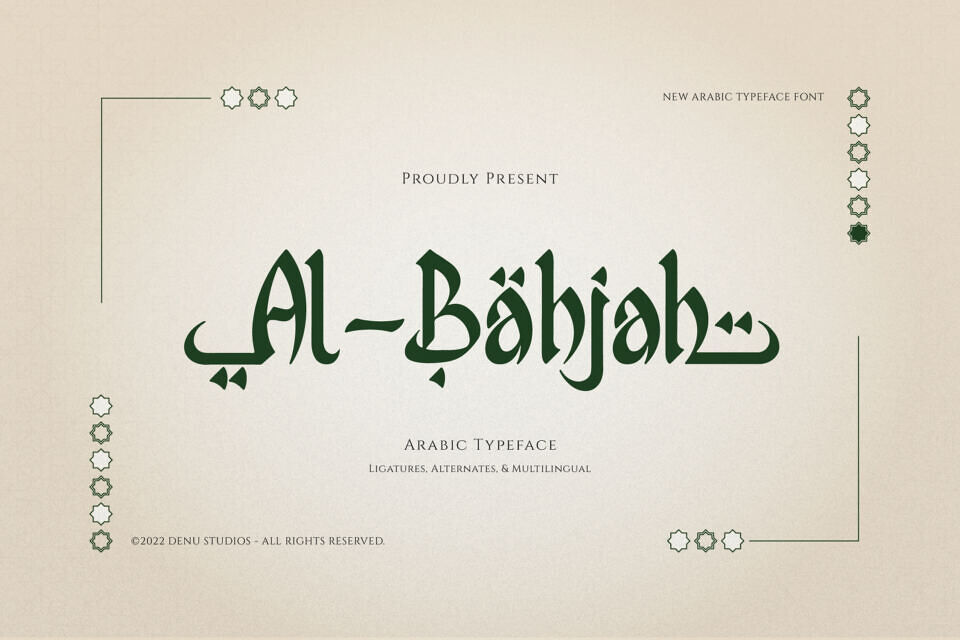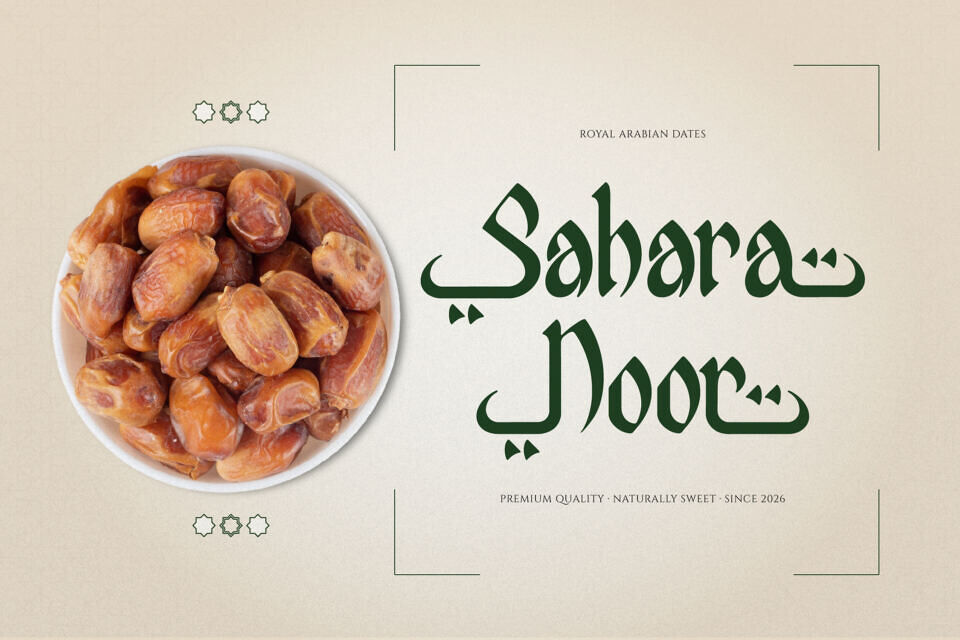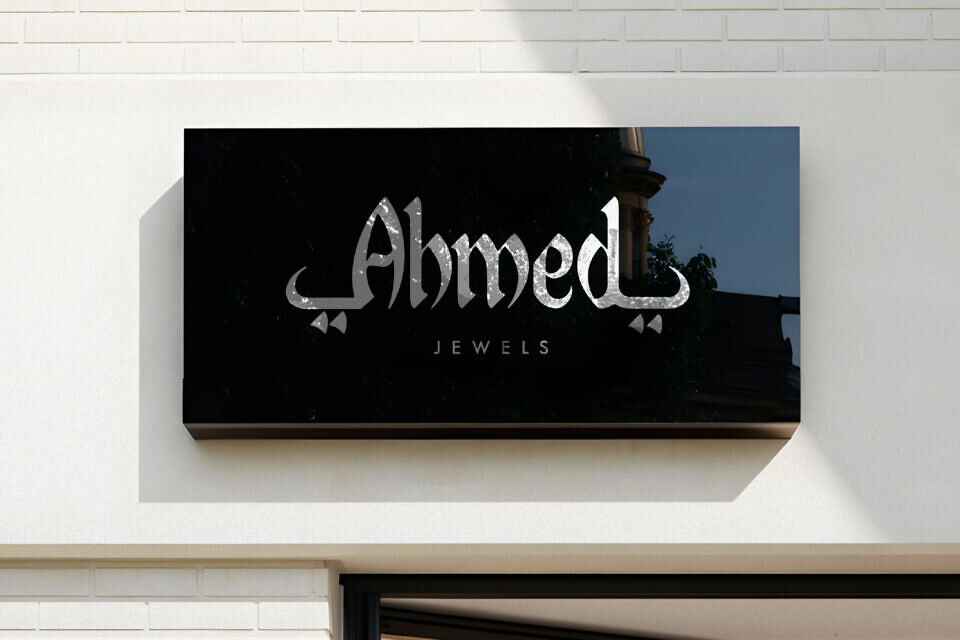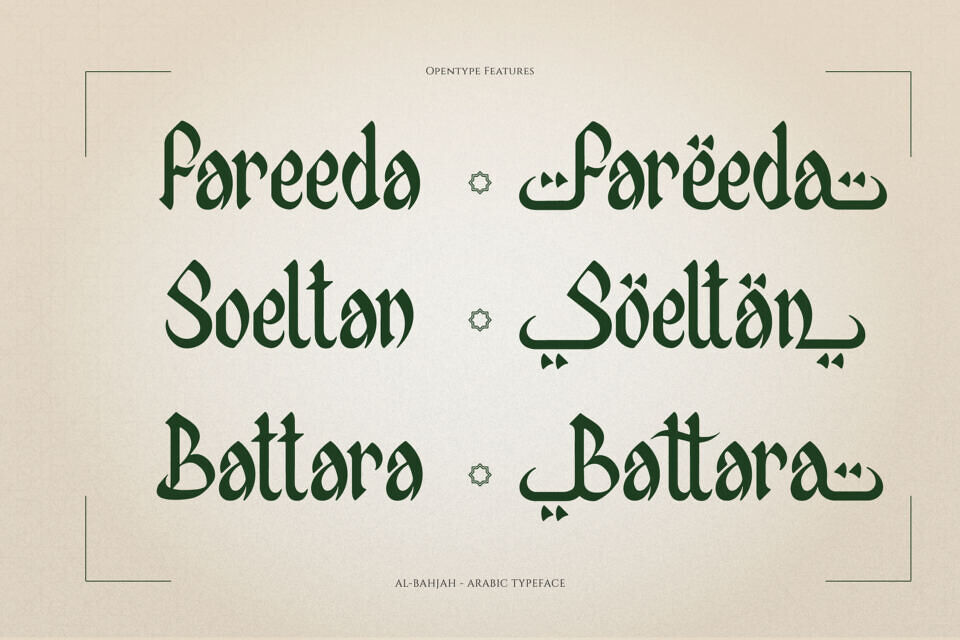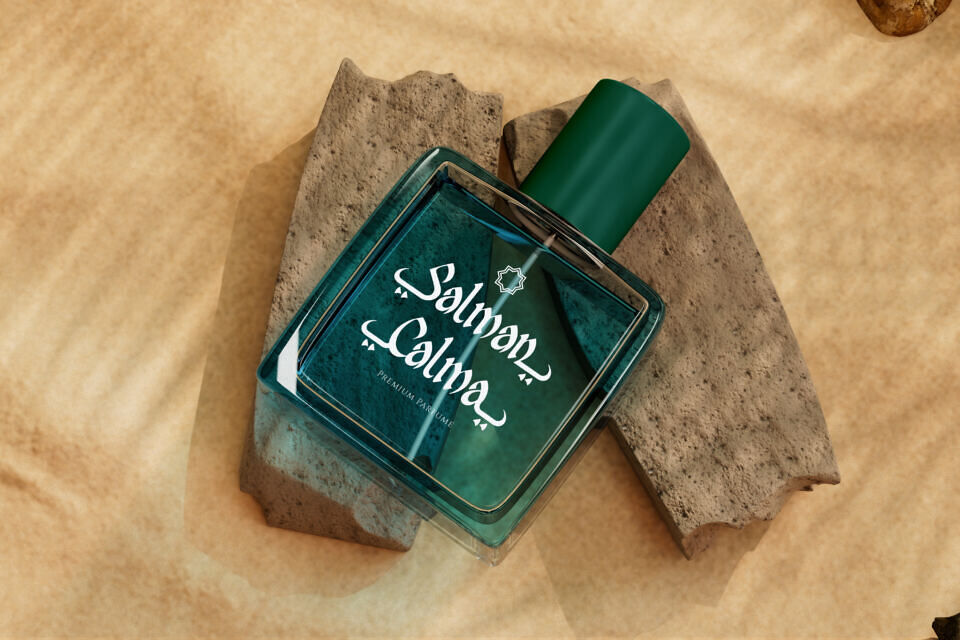
Experience the rhythmic beauty of Al-Bahjah, a stunning Arabic-style typeface that seamlessly bridges cultural heritage with modern display aesthetics. This font features the fluid, calligraphic strokes characteristic of traditional script, reimagined with a bold, contemporary weight.
Its unique personality is defined by sharp terminals, intricate ligatures, and expressive alternates that provide a bespoke, hand-lettered feel to every word. Al-Bahjah is an extraordinary choice for Middle Eastern-themed branding, exotic restaurant logos, spiritual editorial headers, and high-end cultural event posters.